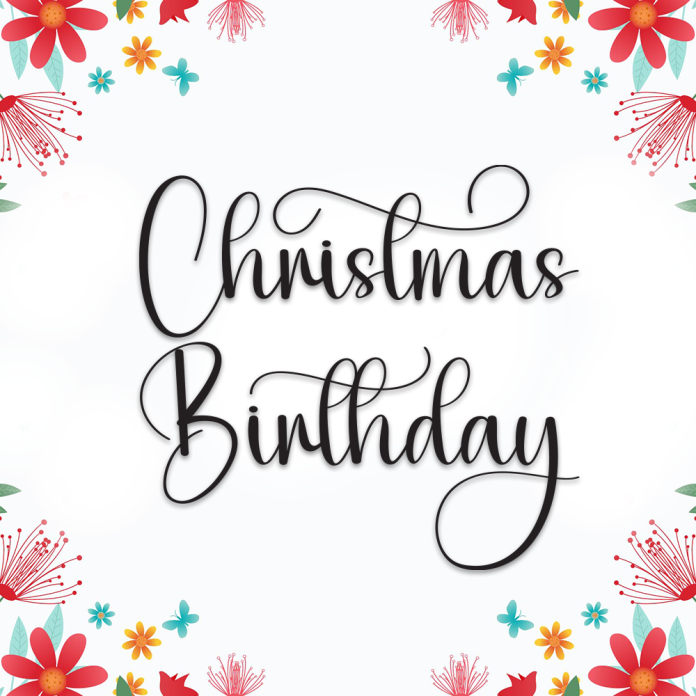
Christmas Birthday is a cheerful and festive handwriting font that combines the warmth of holiday spirit with the joy of celebration. Its playful strokes and lively flow make it ideal for greeting cards, party invitations, and seasonal designs.
Fun and festive handwritten style
Perfect for Christmas cards, birthday invitations, and joyful branding
Playful yet readable letterforms